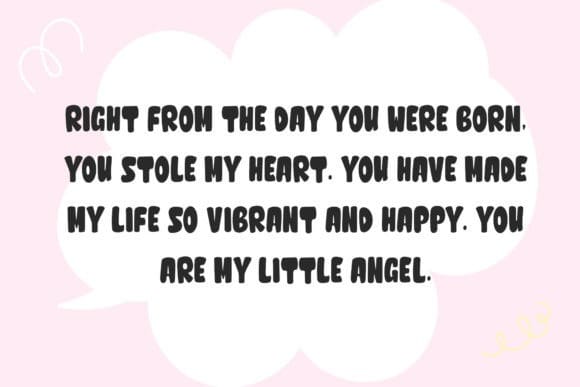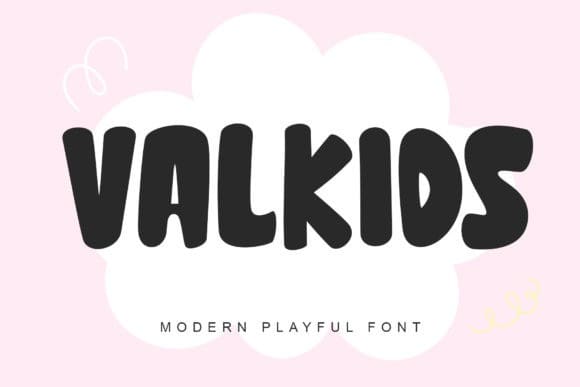
Valkids Display Font
Valkids Display Font is a cool and fun looking display font with an incredibly friendly feel. This font will turn any creative idea into a true piece of art!